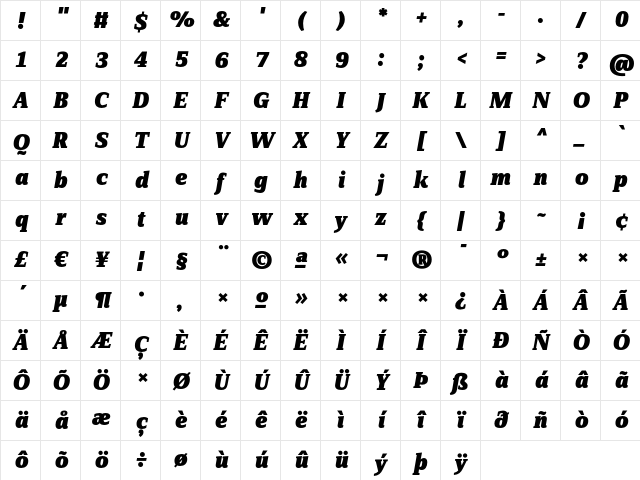
ZineSerifDis Black Italic Tf
Style: Black Italic Tf
Design Context for ZineSerifDis
ZineSerifDis carries the refined structure of traditional serif typography, with bracketed terminals and considered proportions that communicate credibility and craft. The slanted form adds forward momentum and visual energy.
Pro Tip: Use ZineSerifDis for editorial body copy and considered headline work. Pair with a neutral sans for UI elements or captions to create a classic hierarchy.